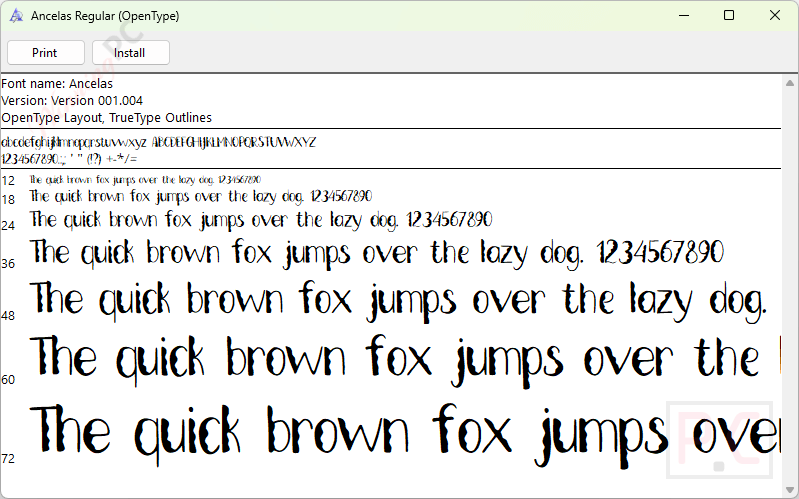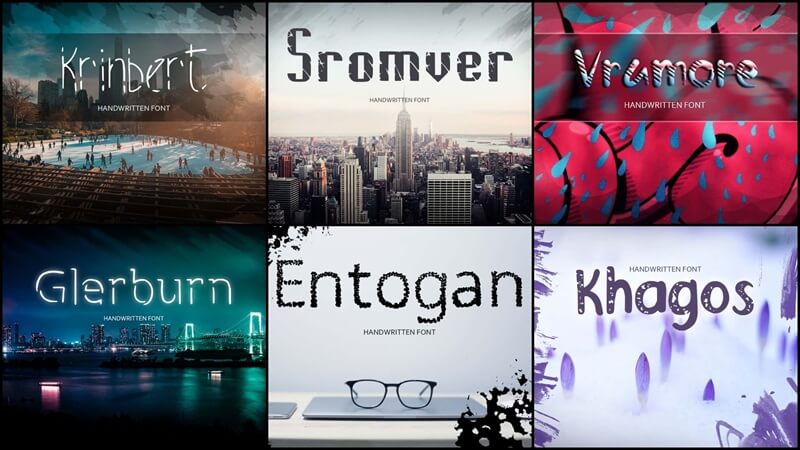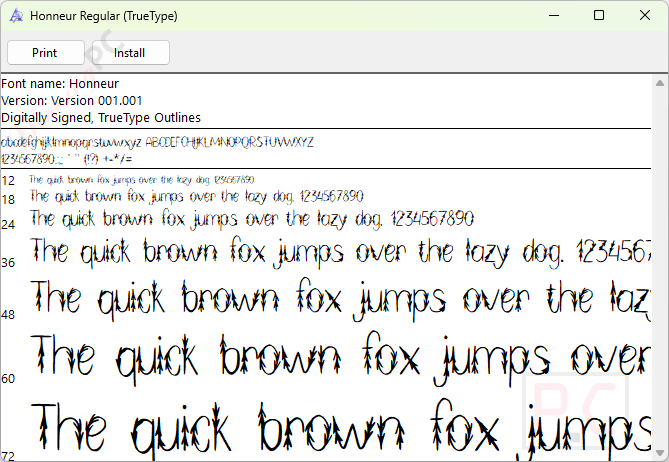
Typography is essential to all forms of design, including web and print, therefore you should always be learning new things about it. With so many options in the market, you should own Eldamar Studio: Display Fonts to make all the difference for your projects. This collection provides ten distinct fonts, and each font stands out, from bold and modern to elegant and classic. Furthermore, each font is designed to capture attention and convey a specific mood or theme, offering unique characteristics that can elevate any project. This collection is one of the best selections of the best fonts, whether you’re designing a logo, crafting a headline, or creating a poster.
Main Features
- 10 Display Fonts – Eldamar Studio includes 10 styles, from sleek and modern to vintage and ornate.
- You can find the perfect font for any project, whether you need something bold and eye-catching or subtle and sophisticated.
- Each font in the collection is crafted with precision and attention to detail.
- The high-quality design ensures that the fonts look great at any size, whether used in print or digital formats.
- These display fonts are incredibly versatile and suitable for a wide range of applications. You can use them to create logos, headlines, posters, social media graphics, and more.
- Each font in the collection has its own unique characteristics, from intricate details to bold strokes.